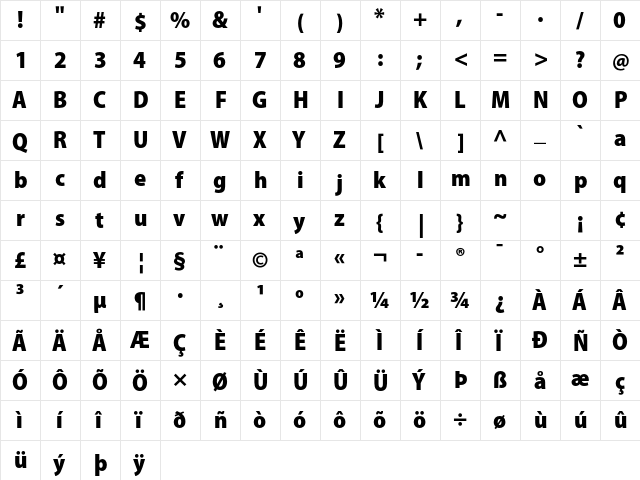
Myriad Pro Black SemiCondensed Font Preview
Myriad Pro Black SemiCondensed
Myriad Pro Black SemiCondensed Font Details
| Style | Black SemiCondensed |
| Designer | Robert Slimbach and Carol Twombly |
Design Context for Myriad Pro Typeface
Myriad Pro is a composed and adaptable typeface that performs quietly and consistently across a wide range of design contexts. The condensed width makes it efficient for tight spaces without sacrificing legibility.